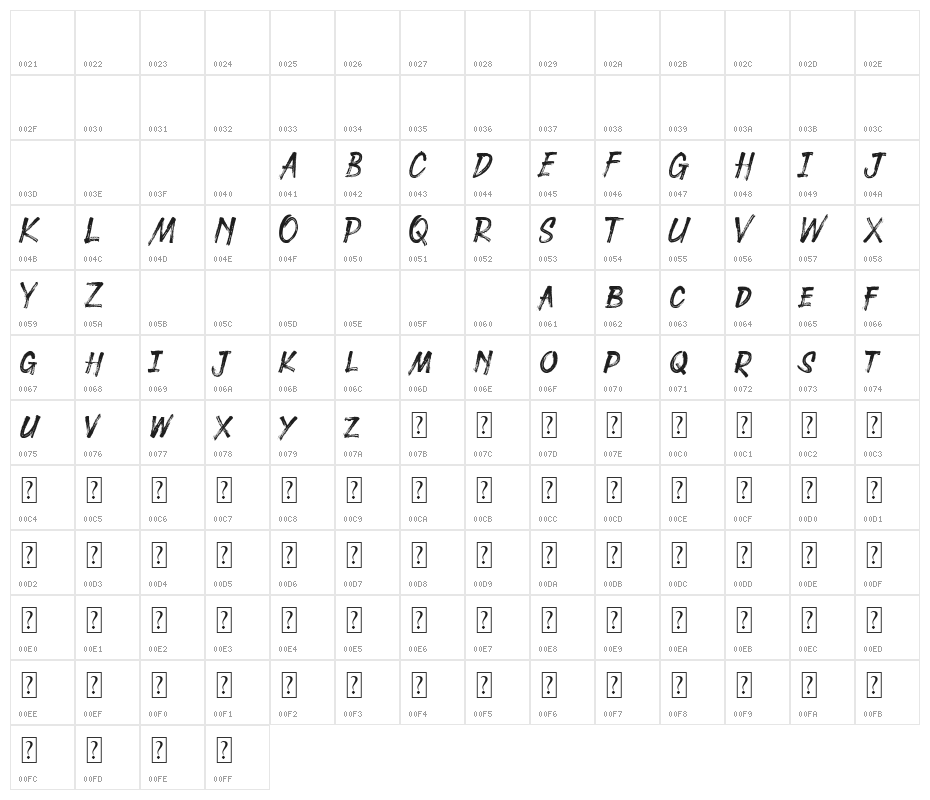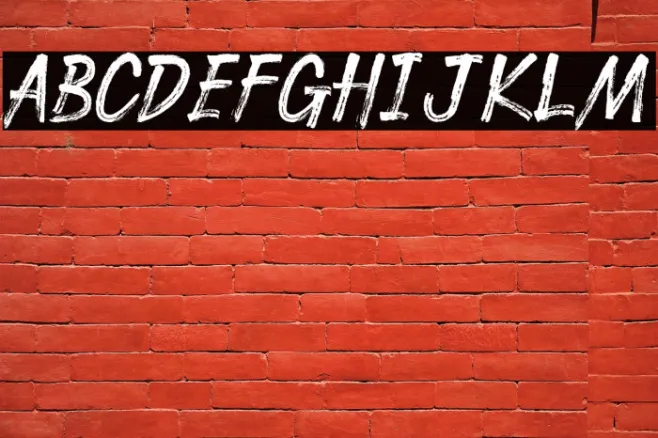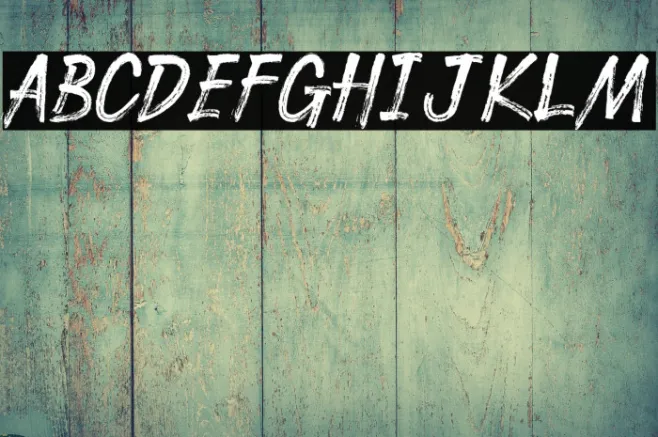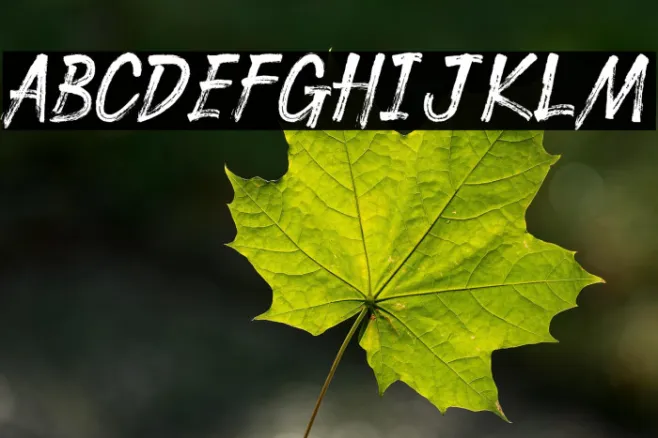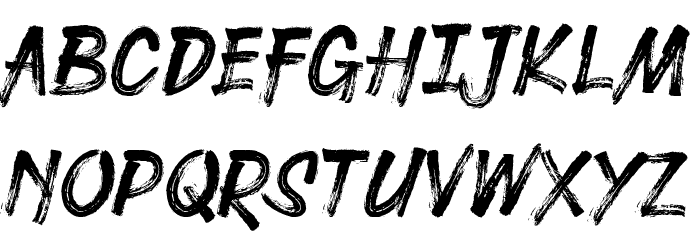
Under Rock Font
Under Rock Description
This font features a bold, brushstroke style that exudes energy and dynamism. Each character is crafted with a rough, textured appearance, giving it a hand-painted look. The strokes vary in thickness, creating a sense of movement and spontaneity. The uppercase letters are particularly striking, with sharp angles and a slightly slanted orientation, enhancing the font's edgy and modern feel. The lowercase letters maintain the same energetic style, ensuring consistency across the typeface. This font is ideal for projects that require a bold statement, such as posters, branding, or any design that aims to capture attention with its raw and artistic flair.
| Proposed Projects | Ideal for posters, branding, and designs that need a bold, artistic flair. |